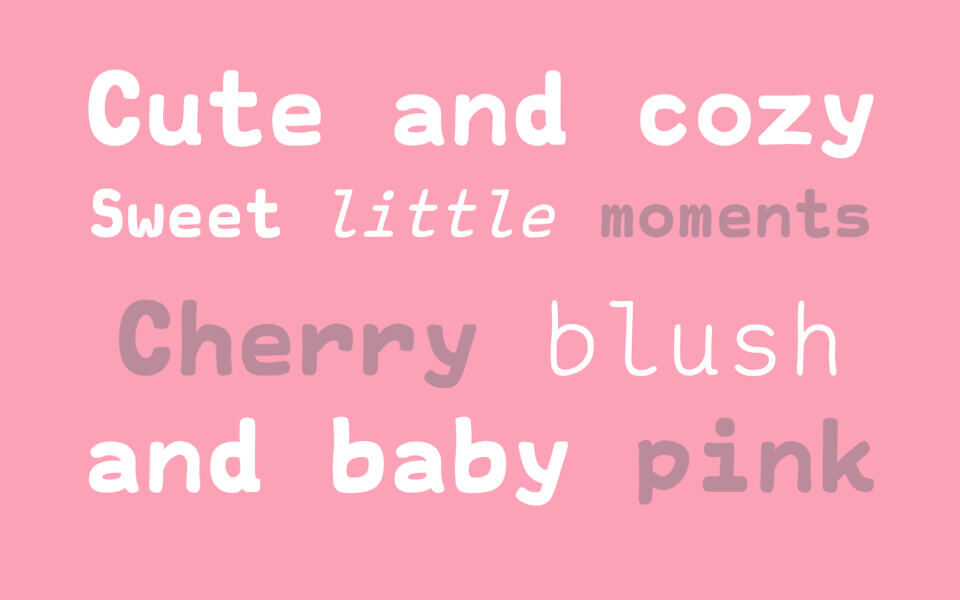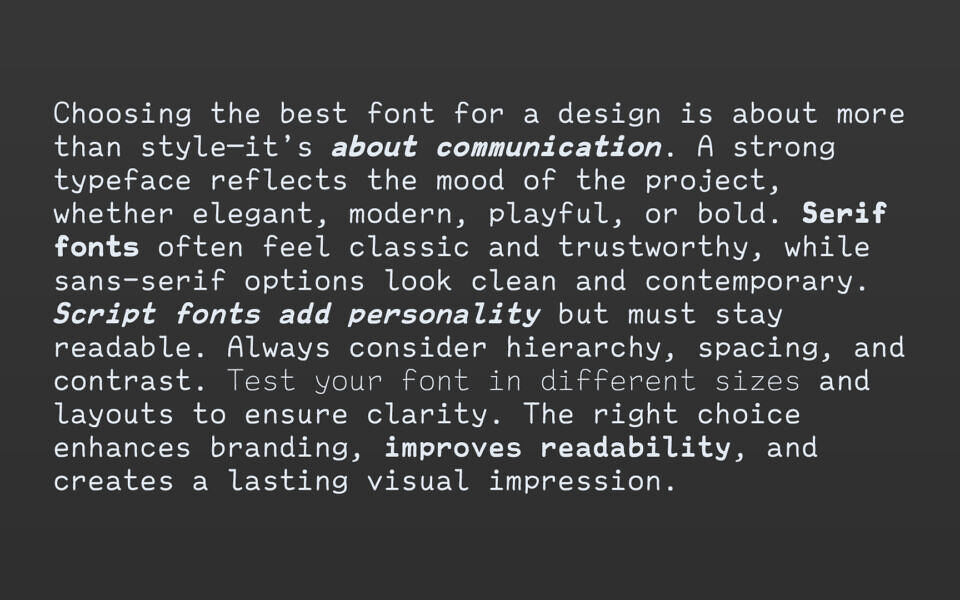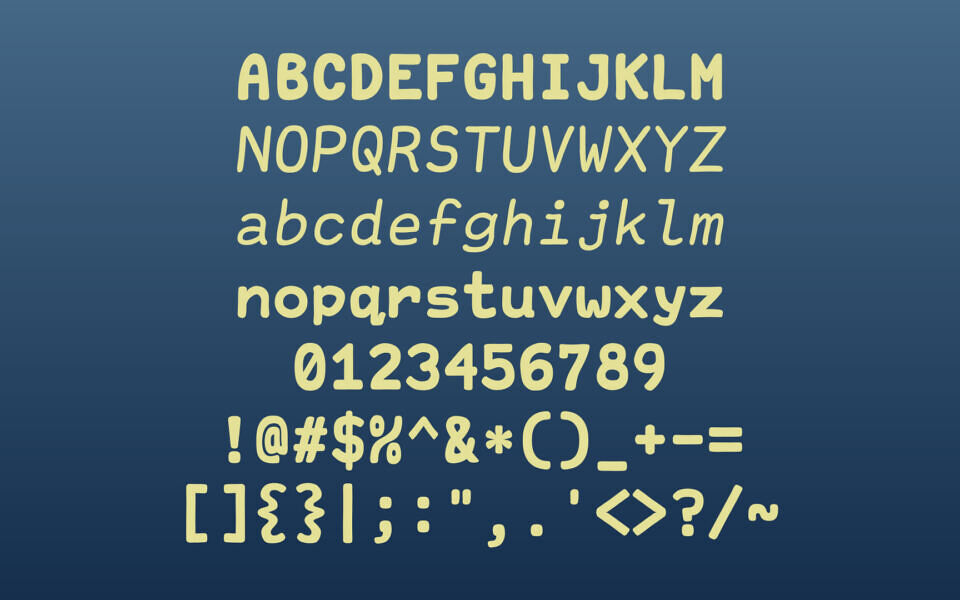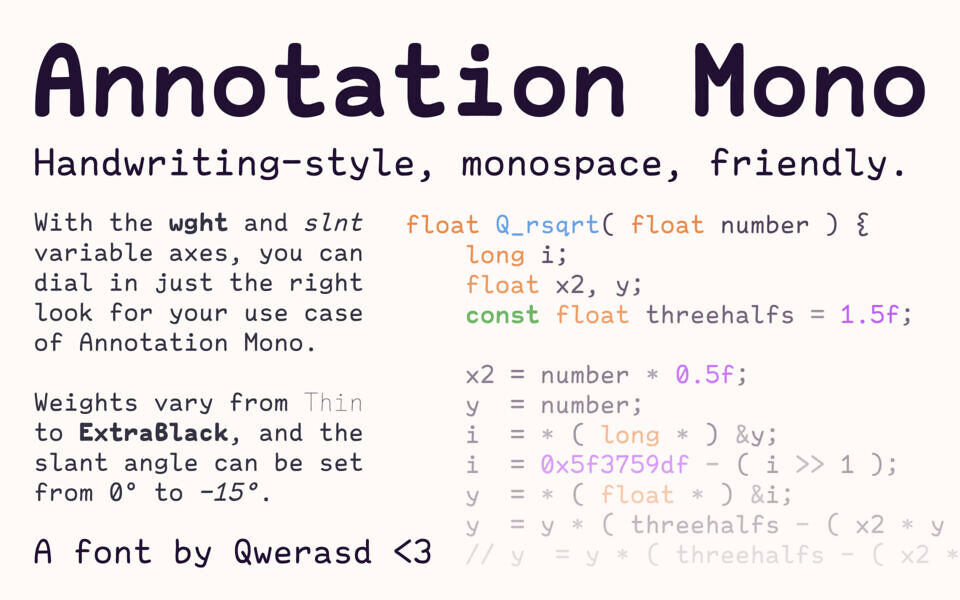
Annotation Mono Font
Annotation Mono is a lovingly crafted handwriting-style monospace font. Its an idealized handwriting; using letter forms inspired by monospace bitmap fonts, legibility is maximized while retaining a hand-written character.
Its variable weights make Annotation Mono ideal for a wide variety of use cases other than code, including labels and headings. Given its hand-written look, you could even use it for comic lettering if you want.
Annotation Mono features two variable axes, wght (weight) and slnt (slant). The weight axis allows fine-grained selection of text weight from Thin to ExtraBlack, and with the slant axis, an exact pitch angle can be chosen from Upright at 0° to Oblique at -15°.